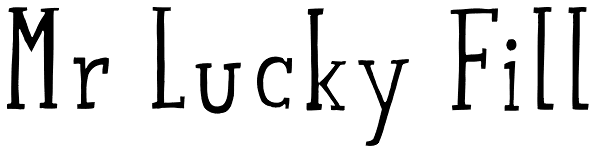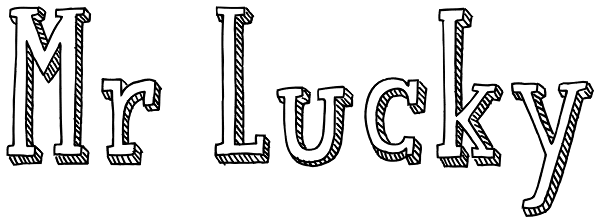
Mr Lucky
Mr Lucky is Mr Happy's slab brother and a hand-drawn narrow typeface designed for one of our books. You can layer different styles over the background style to achieve lots of colorful effects. Use just one style to get a single color letter or set...
Mr Lucky Outline
Mr Lucky Shadowed
Mr Lucky Background
Mr Lucky Fill
Mr Lucky
Mr Lucky Fill And Outline
Mr Lucky Stripped Background